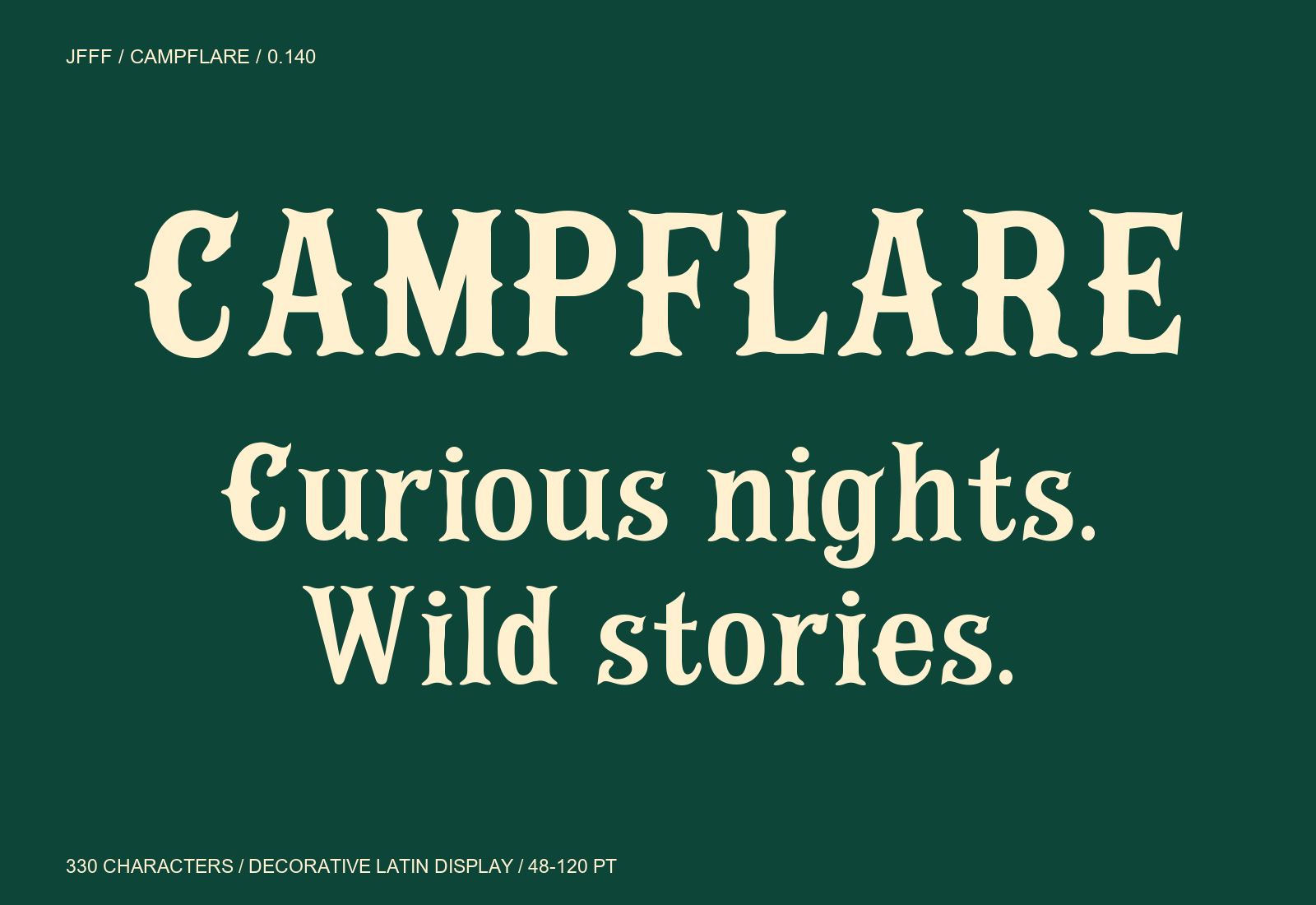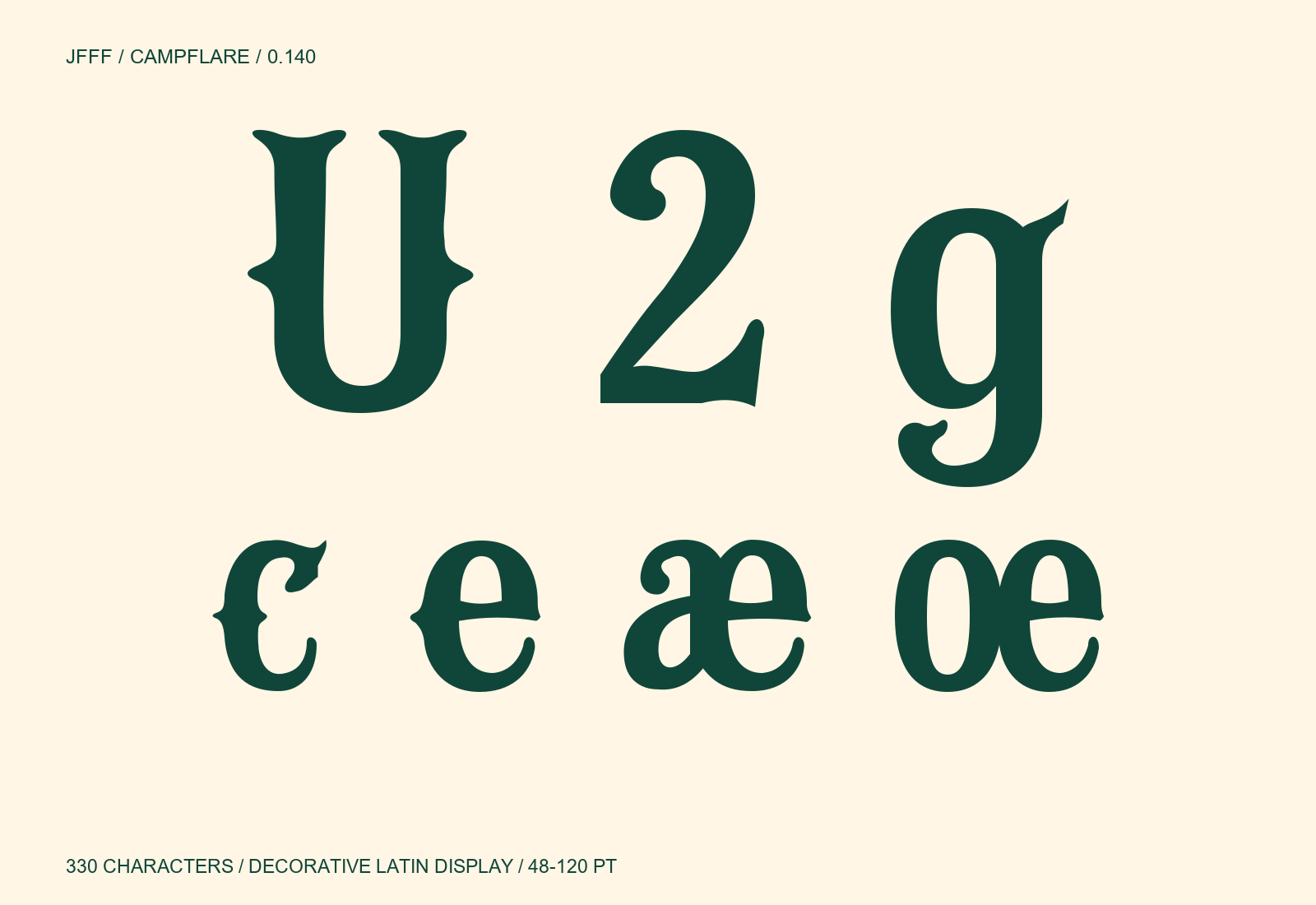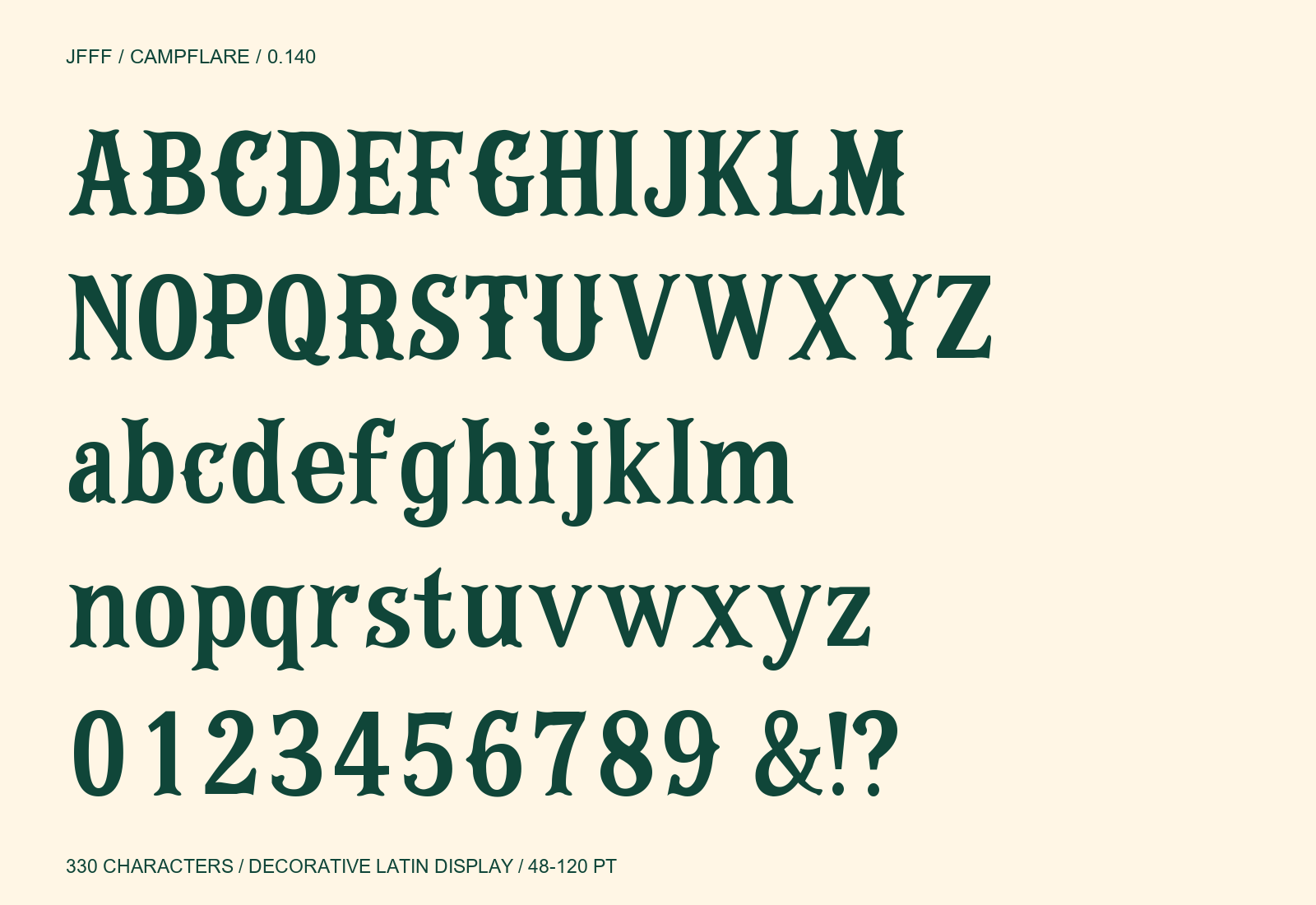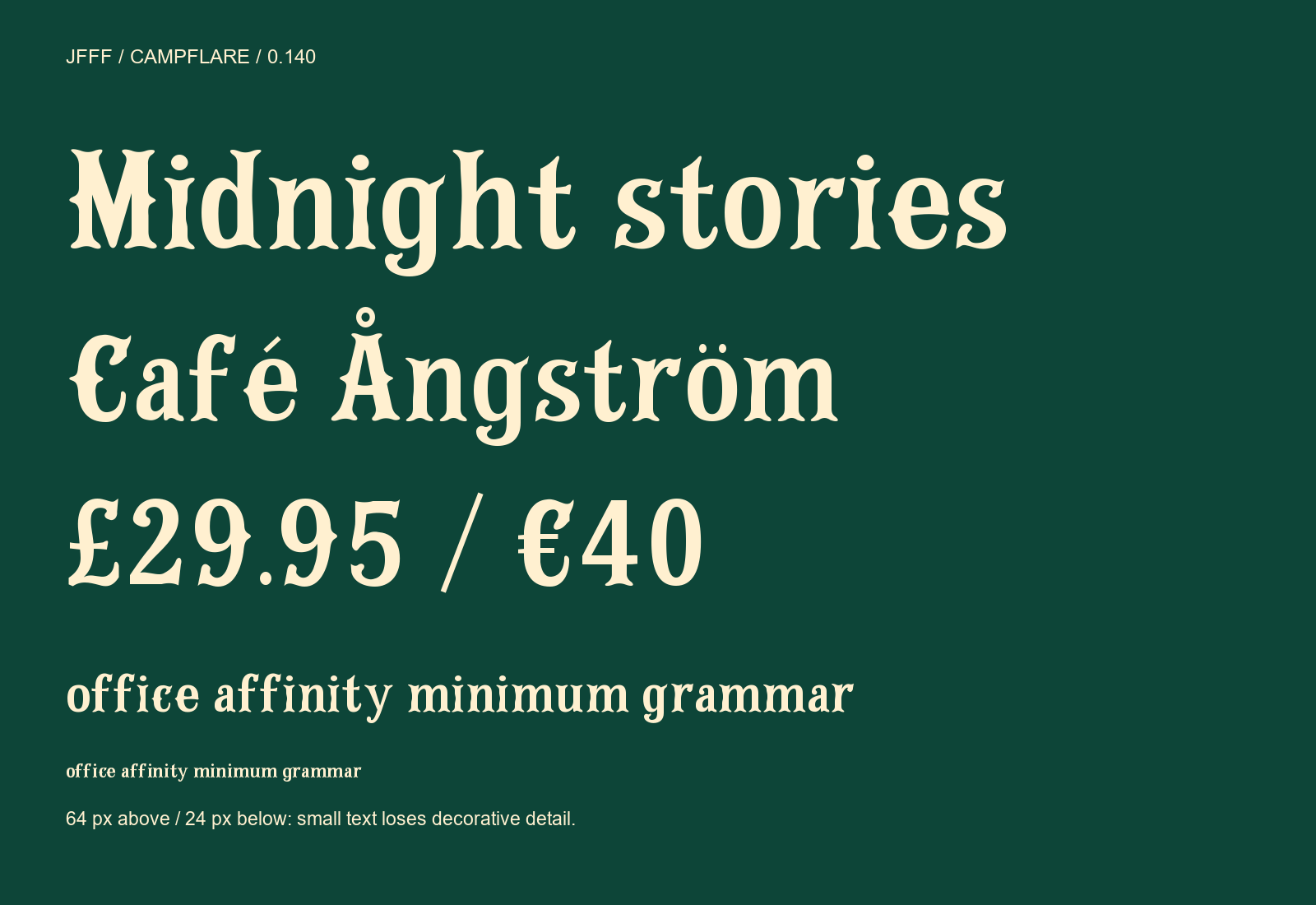
Curious nights. Wild stories. JFFF Campflare is a condensed decorative serif with cupped serifs, centre spurs and curled terminals. Drawn from custom vector outlines after the supplied CAMPY CREATURES reference, with newly designed lowercase, figures and symbols. Version 0.140 refines U, 2 and g curve joins, balances lowercase ornament and adds optical spacing corrections. Includes 330 encoded characters: Basic Latin, Latin-1, Latin Extended-A and selected punctuation, including two spaces. Designed for posters, packaging and short web headlines at 48–120 pt. Precomposed Latin accents are supported; Hangul and independent combining marks are not included. Small text loses decorative detail. Windows and rendered specimen proofs were reviewed; physical print and native design-app installation are not yet verified.